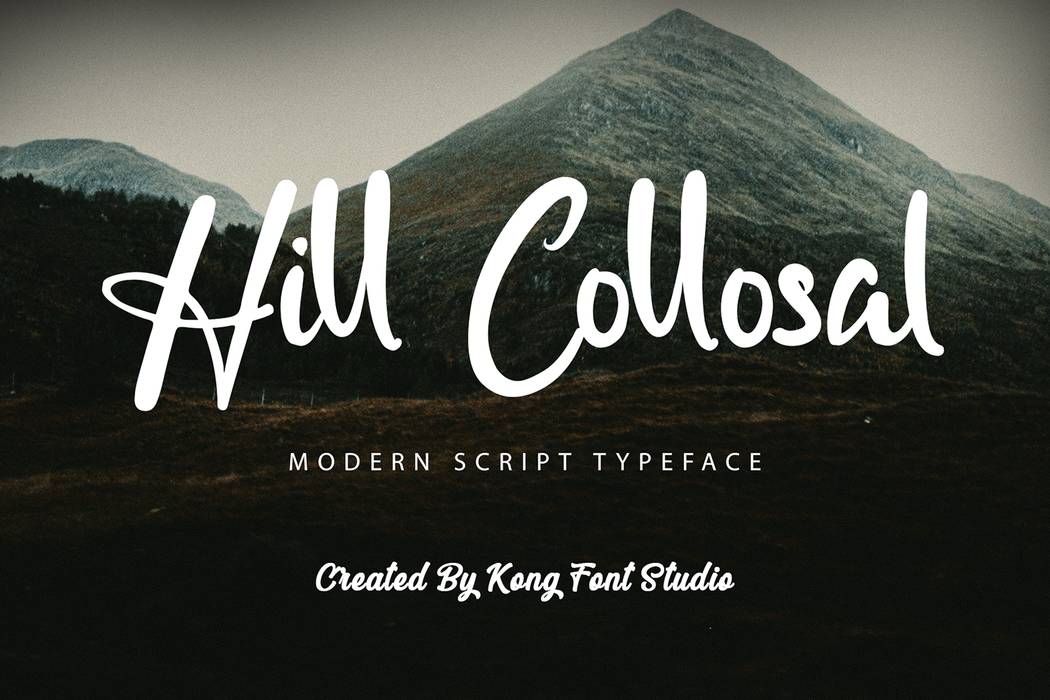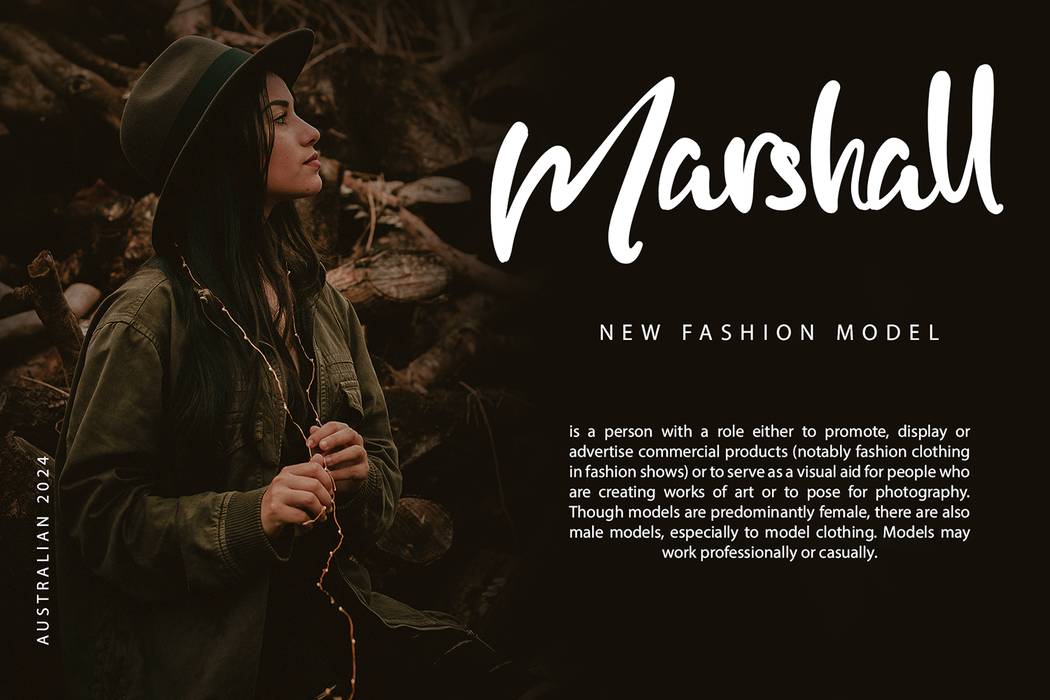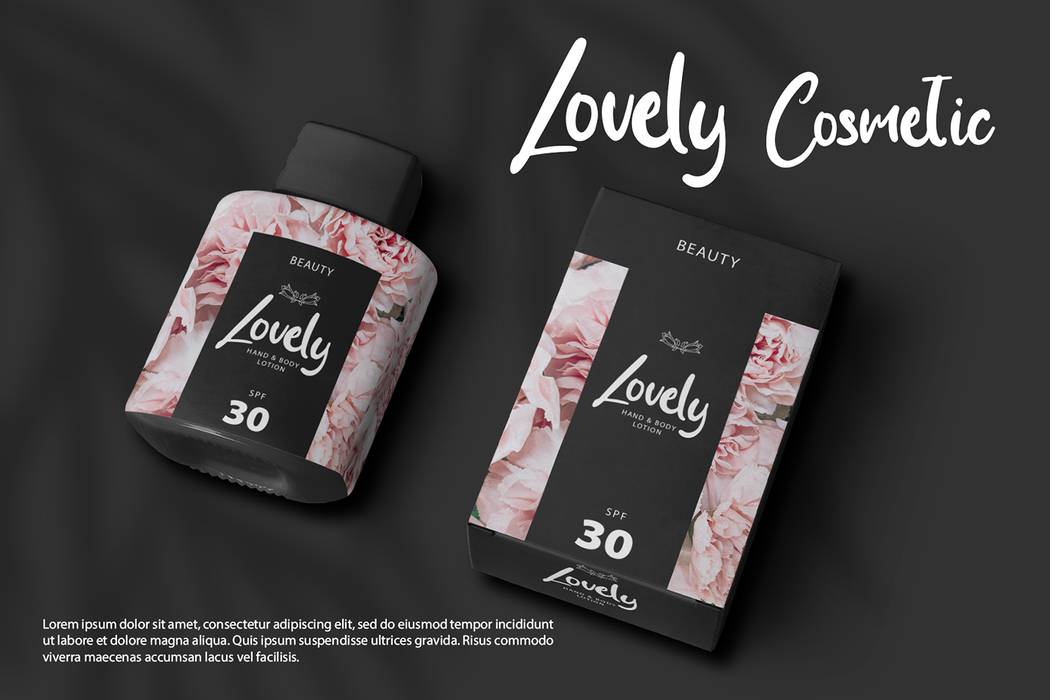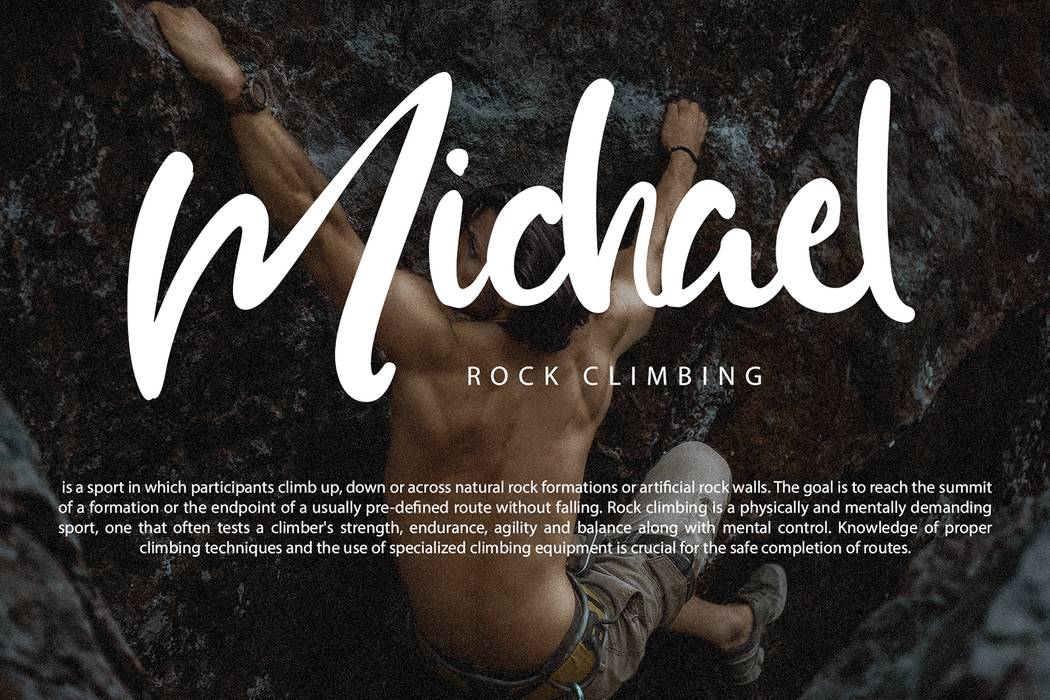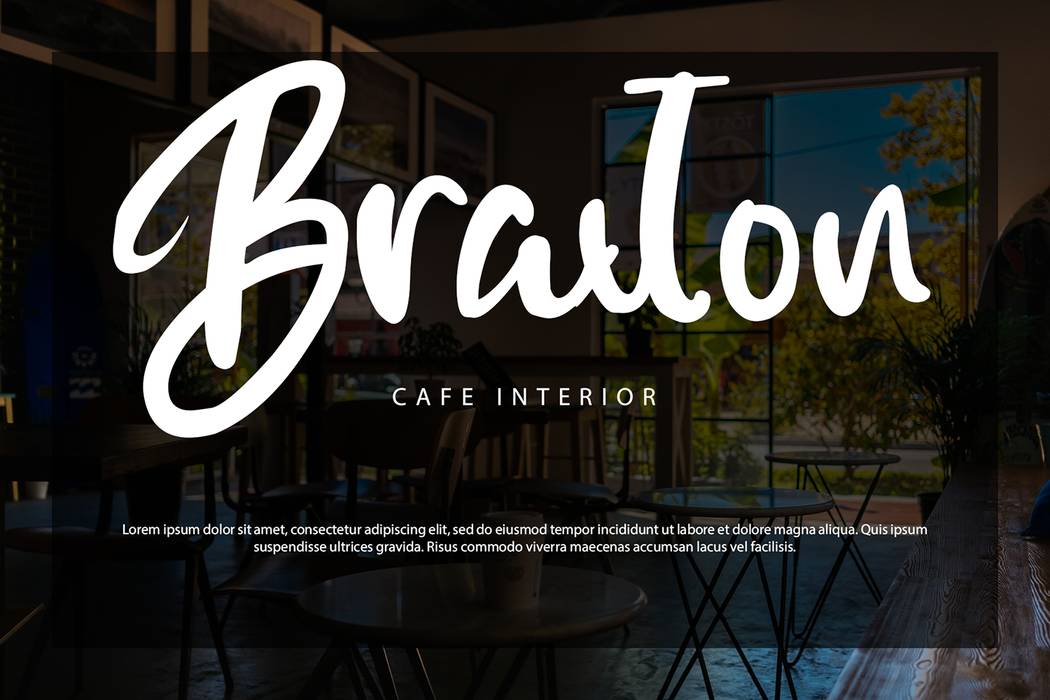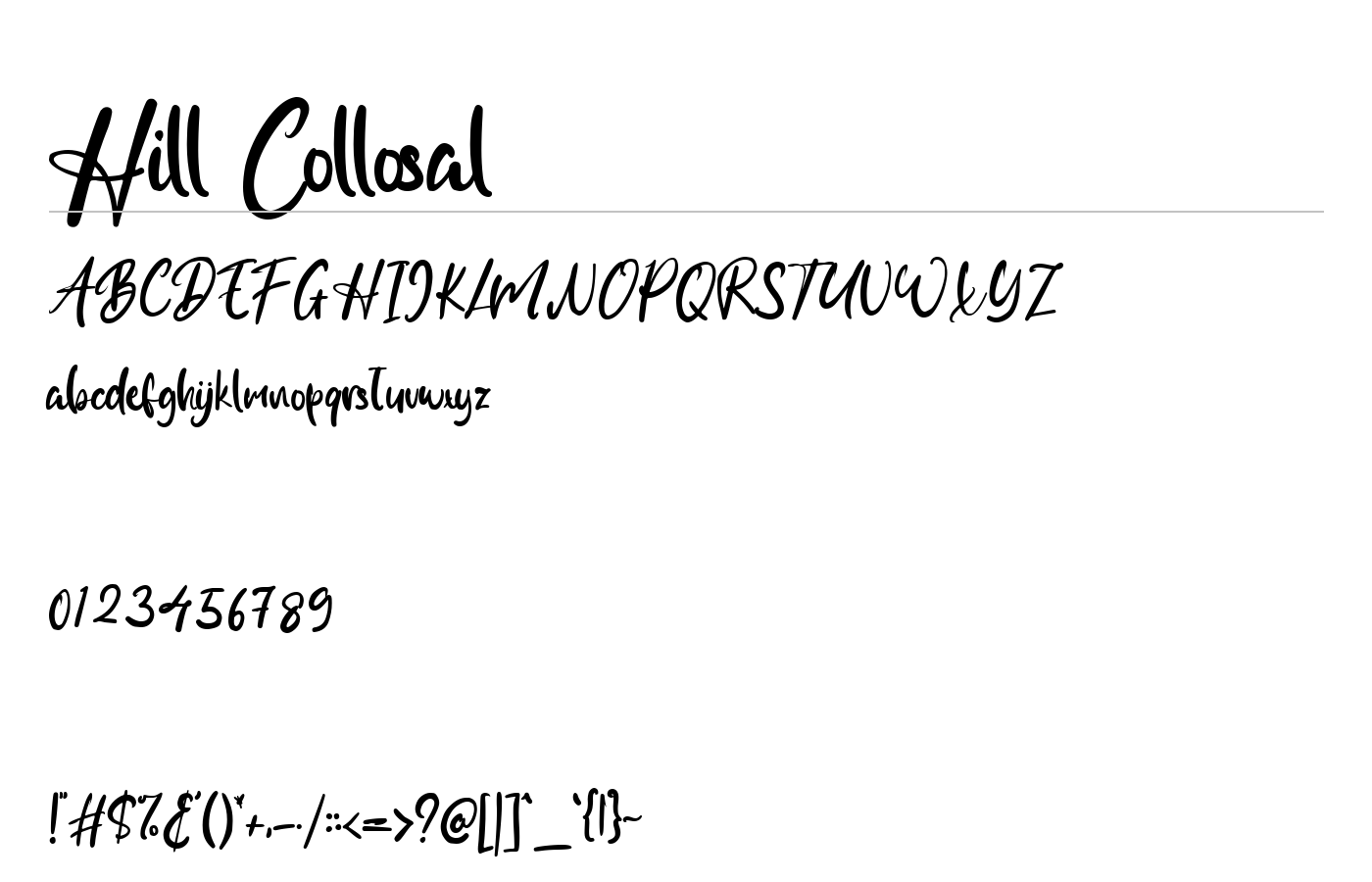
Hill Collosal is a lively and expressive handwritten script font characterized by its fluid, slightly casual strokes and moderate contrast. It features a dynamic mix of uppercase and lowercase letters with a playful, organic feel, making it ideal for creative and personal branding projects. This font works beautifully in logos, invitations, and any design that benefits from an approachable yet artistic touch.
Hill Collosal Font
About Hill Collosal Font